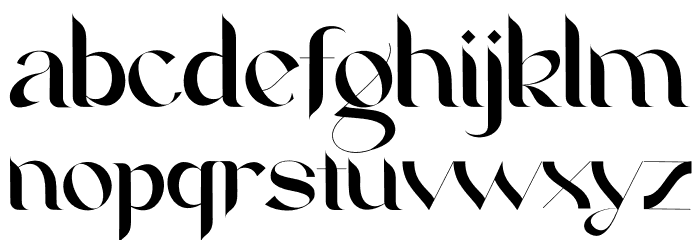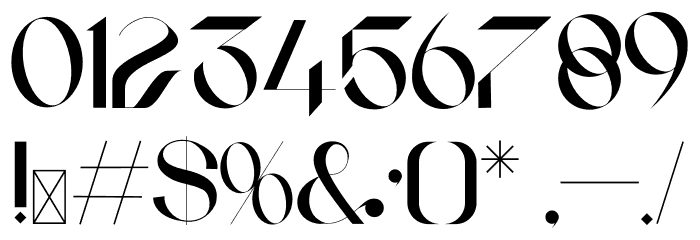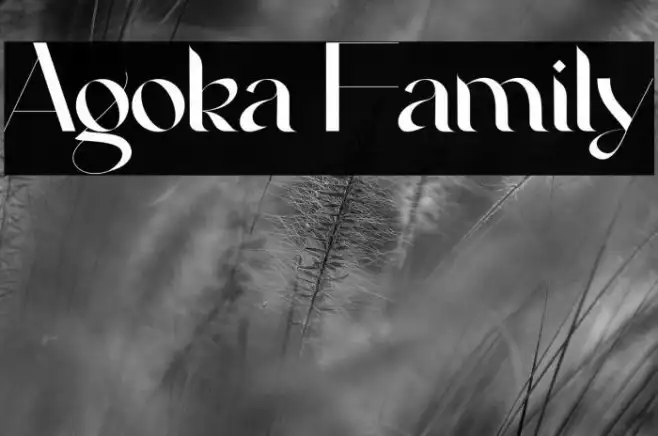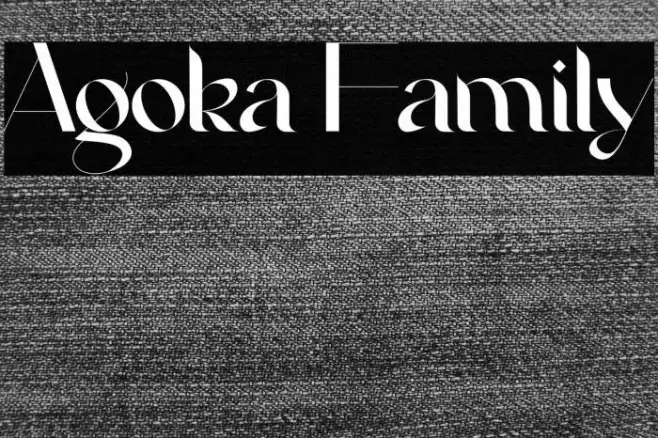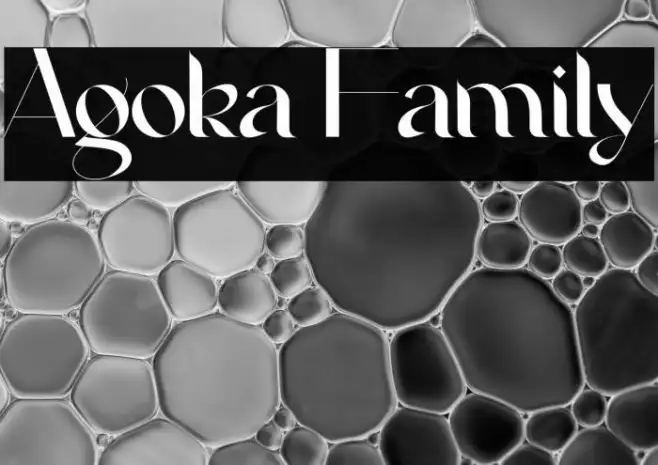
Agoka Family Font
This font exhibits a striking blend of modern and classic elements, characterized by its high contrast between thick and thin strokes. The uppercase letters are elegantly elongated, with sharp, angular serifs that add a touch of sophistication. The lowercase letters maintain a fluidity and grace, with some characters featuring unique, artistic flourishes that enhance the overall aesthetic. The numerals are bold and distinctive, ensuring clarity and readability. Special characters are thoughtfully designed to complement the overall style, making this font versatile for various design needs.
A modern, high-contrast font with elegant serifs and artistic flourishes.
- Proposed Projects: Ideal for luxury branding, editorial design, fashion magazines, and high-end product packaging.